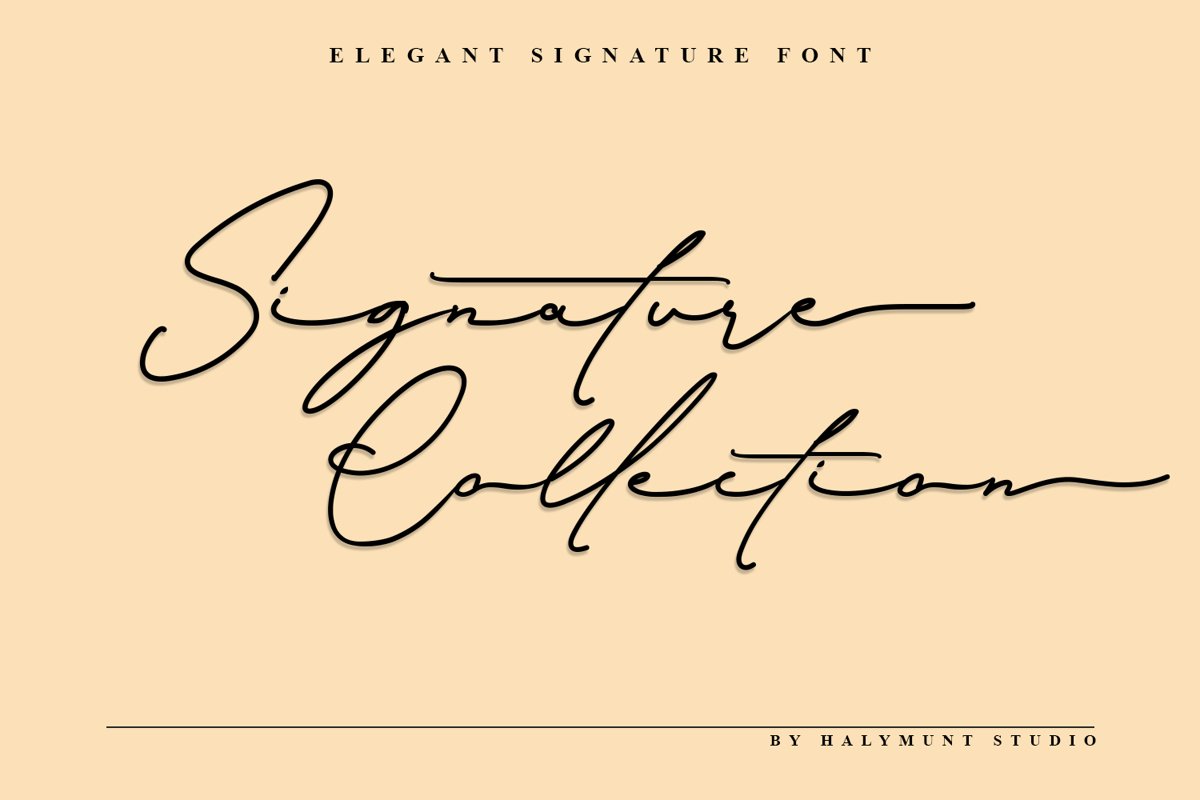
Signature Collection
Signature Collection is a modern handwritten font full of life. Get inspired by its unique charm!
Signature Collection: is perfect for branding projects, logo, wedding designs, social media posts, advertisements, product packaging, product designs, label, photography, watermark, invitation, stationery, and any projects that need handwriting taste.
• Fonts include multilingual support for; Ã¤ ö ü Ä Ö Ü ß ¿ ¡